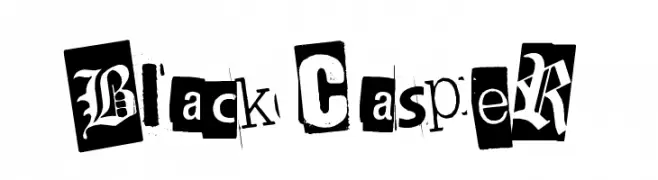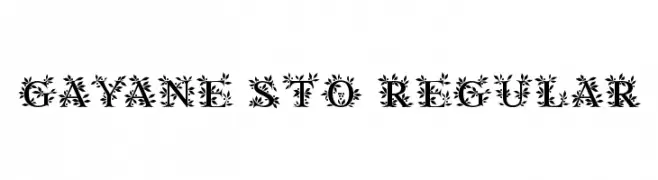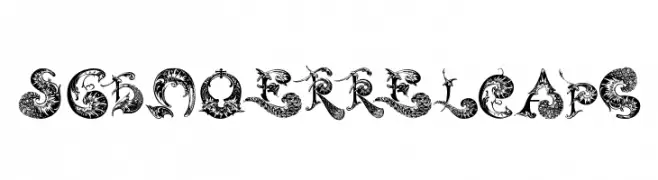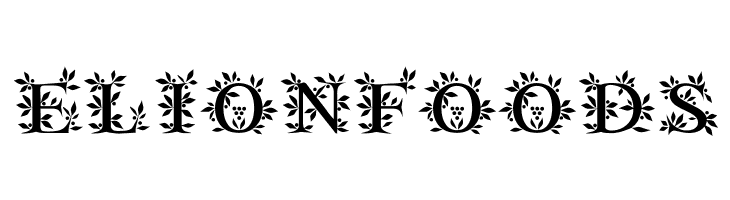
( Font by kingthingsfonts.co.uk )
A decorative and artistic font with intricate patterns and embellishments.
( Fonts by Pi Luo Chiu - thisisallenchiu.tumblr.com )
A distressed, eclectic font with a cut-out, grungy aesthetic.
( Font by kingthingsfonts.co.uk )
A decorative font with bold, floral-themed characters and playful embellishments.
A bold, decorative font with intricate, organic embellishments and a gothic flair.
An ornate, decorative font with intricate leaf embellishments.
( Fonts by Manfred Klein - manfred-klein.ina-mar.com )
An ornate and decorative font with intricate floral embellishments.